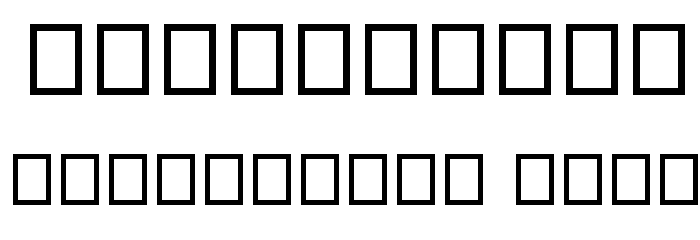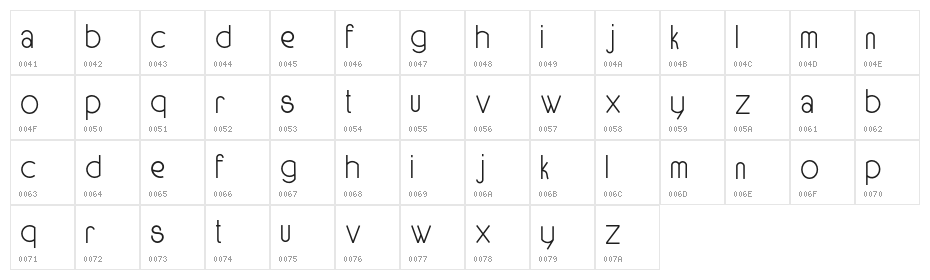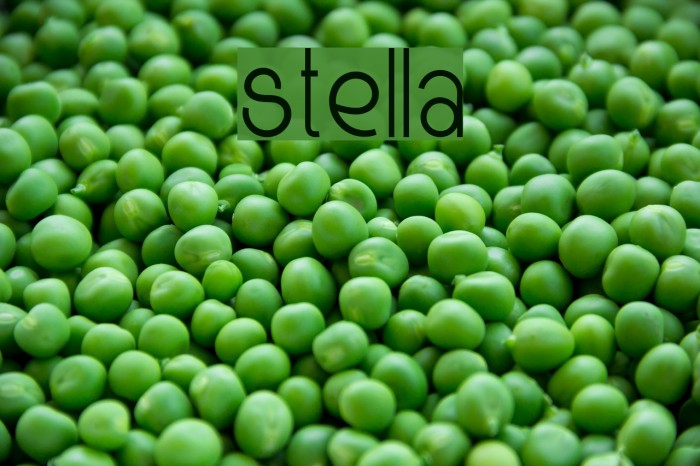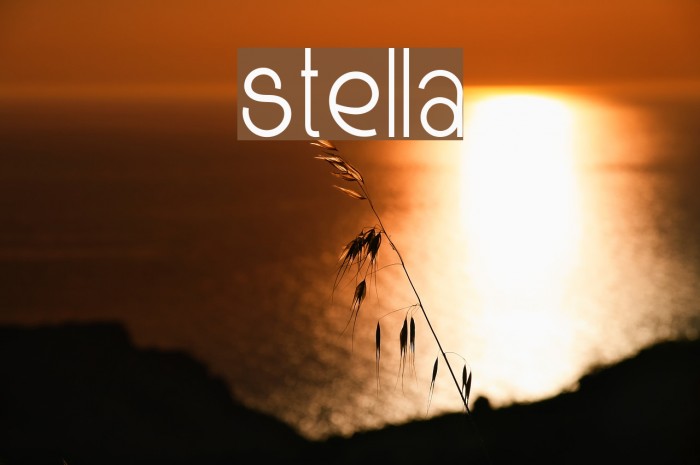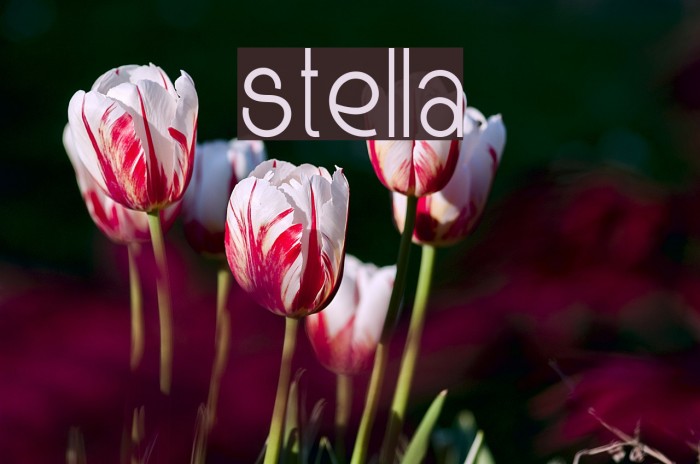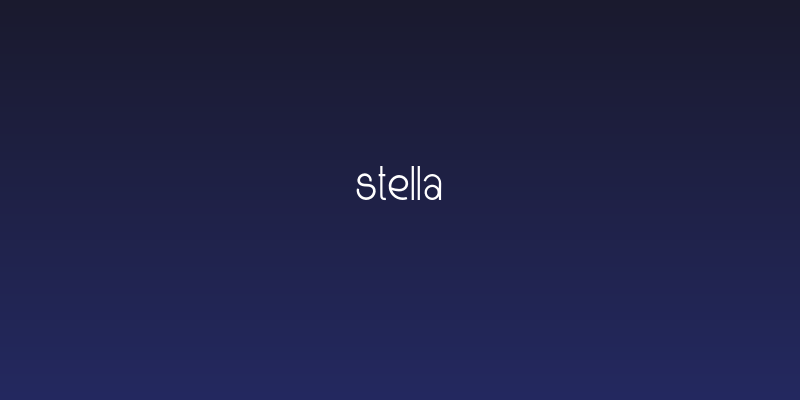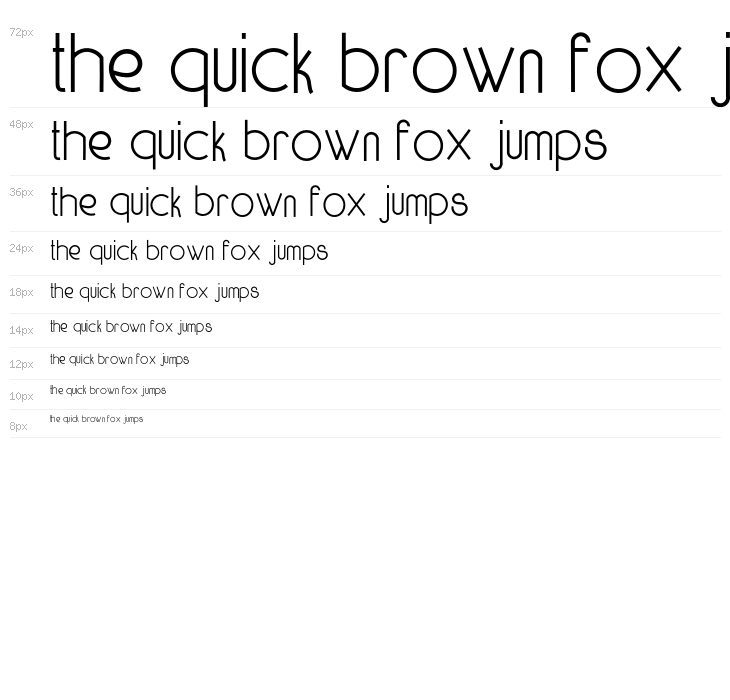
Stella Font
Stella Description
This font features a clean, geometric design with a modern aesthetic. The characters are constructed with consistent line thickness, giving it a uniform appearance. The rounded edges and open counters contribute to its readability and friendly look. The font maintains a balance between simplicity and style, making it versatile for various applications. Its minimalist approach is evident in the straightforward shapes of each letter, which are crafted with precision and clarity. The overall design is sleek and contemporary, suitable for projects that require a fresh and modern touch.
| Proposed Projects | Ideal for branding, digital interfaces, advertising, and editorial design. |